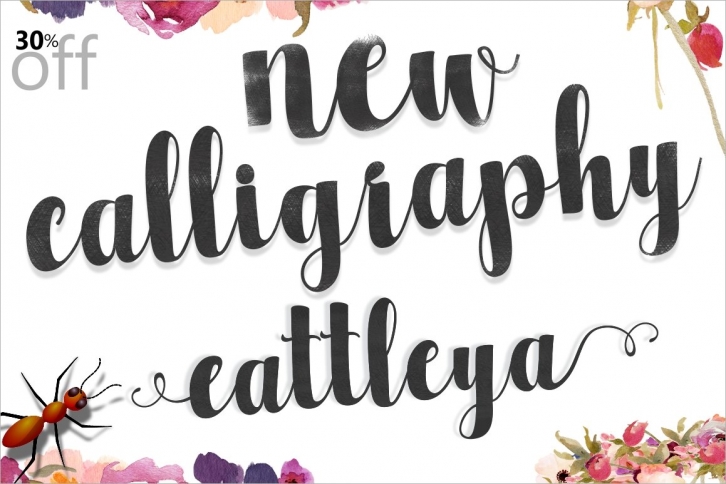
Introducing the new script calligraphy hand lettered typography modern calligraphy script, which combines classic style with a modern style calligraphy
There are more than 350 glyphs in a font including stylistic sets, Contextual Substitute etc. OpenType features with the Stylistic Alternates, Alternative Contextual a few characters that allows you to mix and match pairs of letters according to your design. To access alternate glyphs, you need a program that supports OpenType features such as Adobe Illustrator CS and Adobe InDesign, Corel Draw, Microsoft Word 2010.